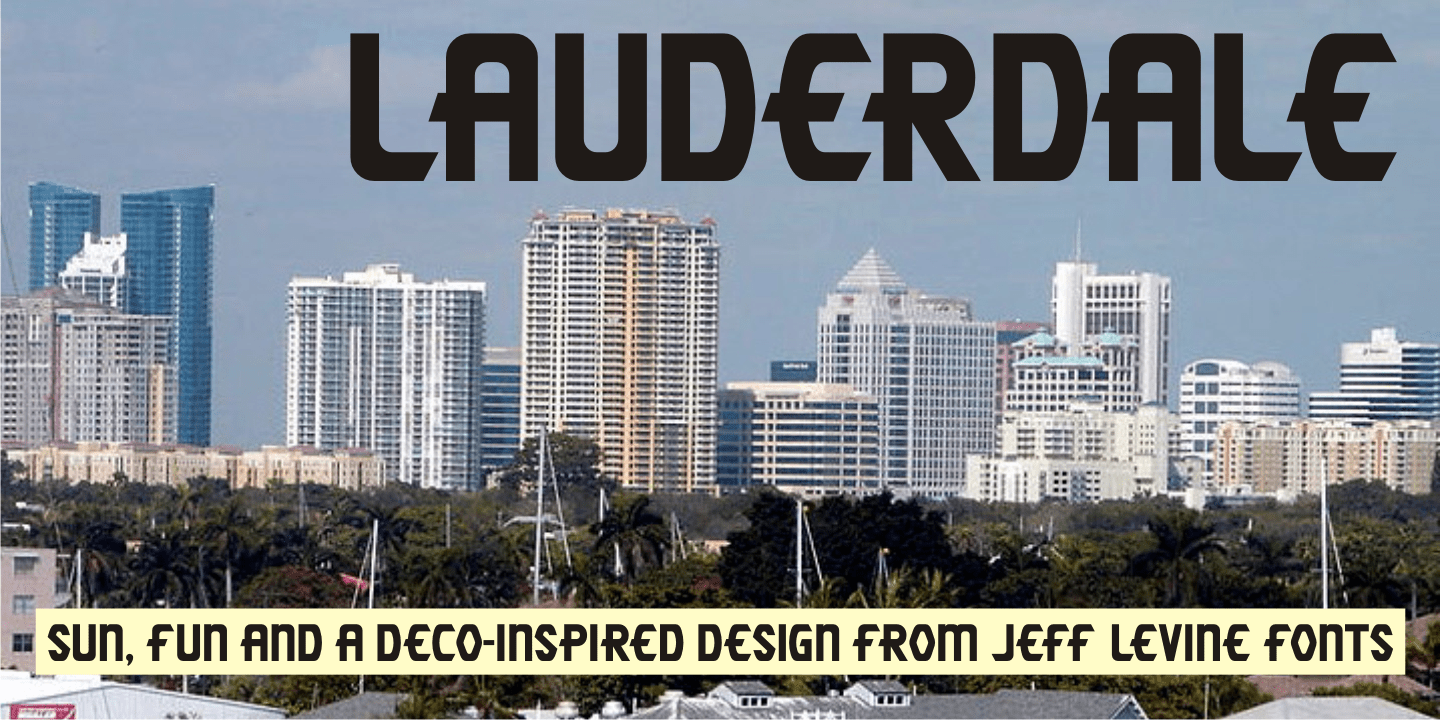
Lauderdale
It was a series of three different forts on various spots on the New River built during the Second Seminole War [in Florida] named for Major William Lauderdale. It was launched as the college students' spring break destination for many years thanks to the film "Where the Boys Are". It's the major city 23 miles North of Miami. But wait! There's more!
Now it's an eclectic Art Deco-inspired typeface. Lauderdale JNL is based on vintage source material with many unusual letter shapes and angles.